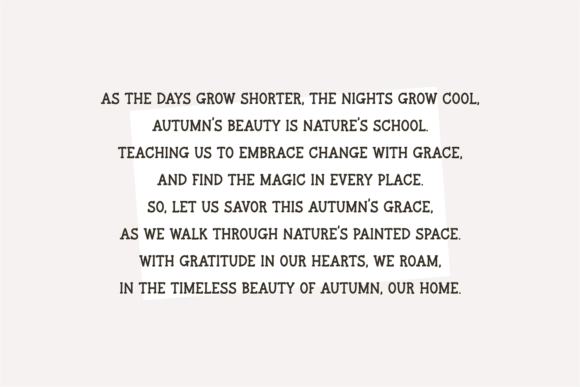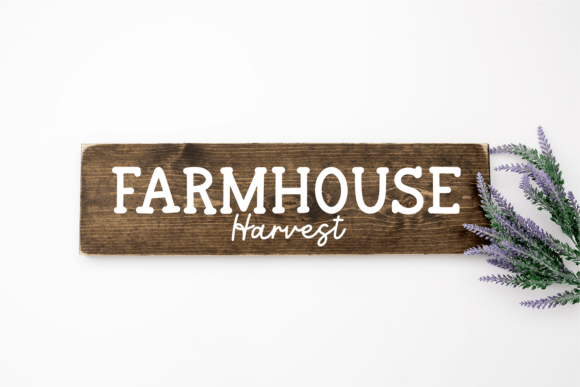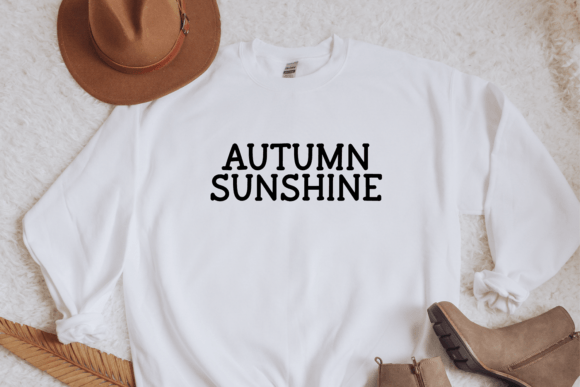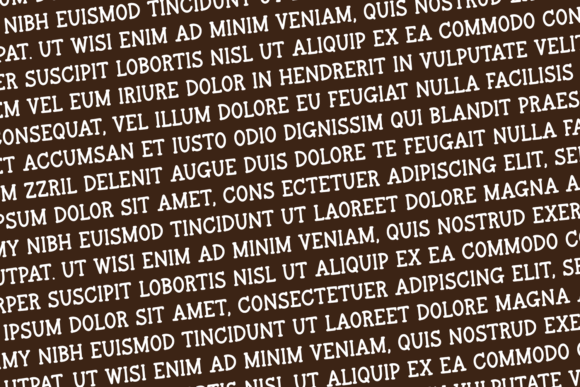
Introduction to Rustic Spruce Font
Rustic Spruce is a cute farmhouse serif handwriting font.
Perfect for autumn Use in goodnotes and planners.
Key Features of Rustic Spruce Font
Why Choose Rustic Spruce Font?